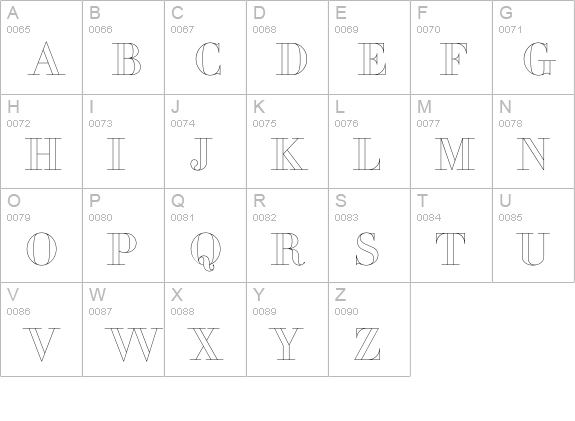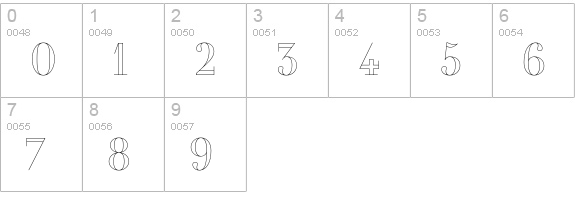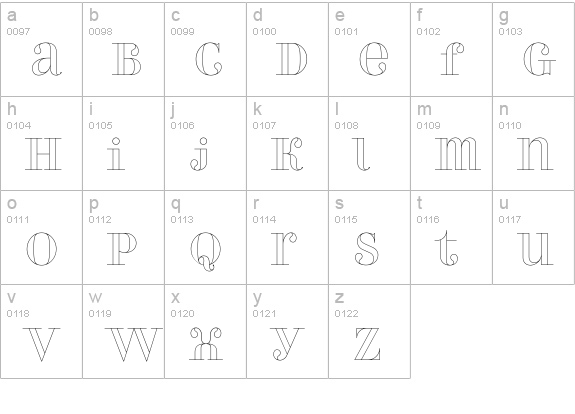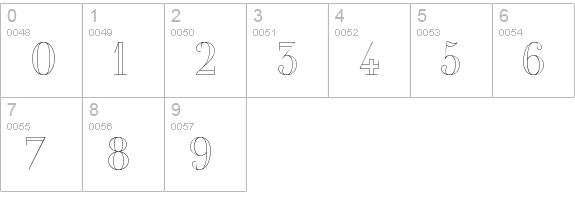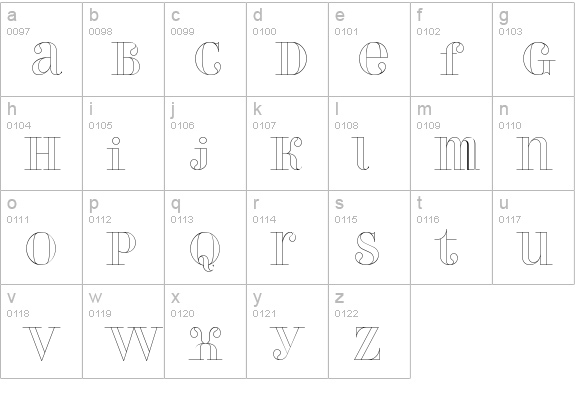
PerlaOutline Font Details
PerlaOutline font is a stunning display typeface that exudes elegance and sophistication. This unique font is perfect for adding a touch of glamour to your designs, whether it's for a logo, branding, or any other creative project. The PerlaOutline font features a delicate outline design that adds a sense of intricacy and refinement to your typography. Its smooth curves and fine details make it visually appealing and eye-catching, capturing the attention of anyone who sees it. One of the best things about PerlaOutline font is that it is free to use. Yes, you heard it right - this beautiful font is freely available to download at FontsMarket.com. This means that you can enhance your designs without worrying about any licensing fees or restrictions. Whether you're a professional designer or a hobbyist, PerlaOutline font is a great addition to your font collection. Its versatility allows it to be used in a variety of design projects, from print materials to web graphics. It complements both modern and vintage aesthetics, giving you endless possibilities for creative exploration. With PerlaOutline font, you can effortlessly create captivating headlines, striking logos, and eye-catching posters that will leave a lasting impression. Its timeless appeal and attention to detail make it a must-have font for any designer looking to make a statement. So why wait? Download PerlaOutline font for free at FontsMarket.com and start incorporating its elegance and sophistication into your designs today. It's a font that will truly elevate your creations and make them stand out from the crowd.